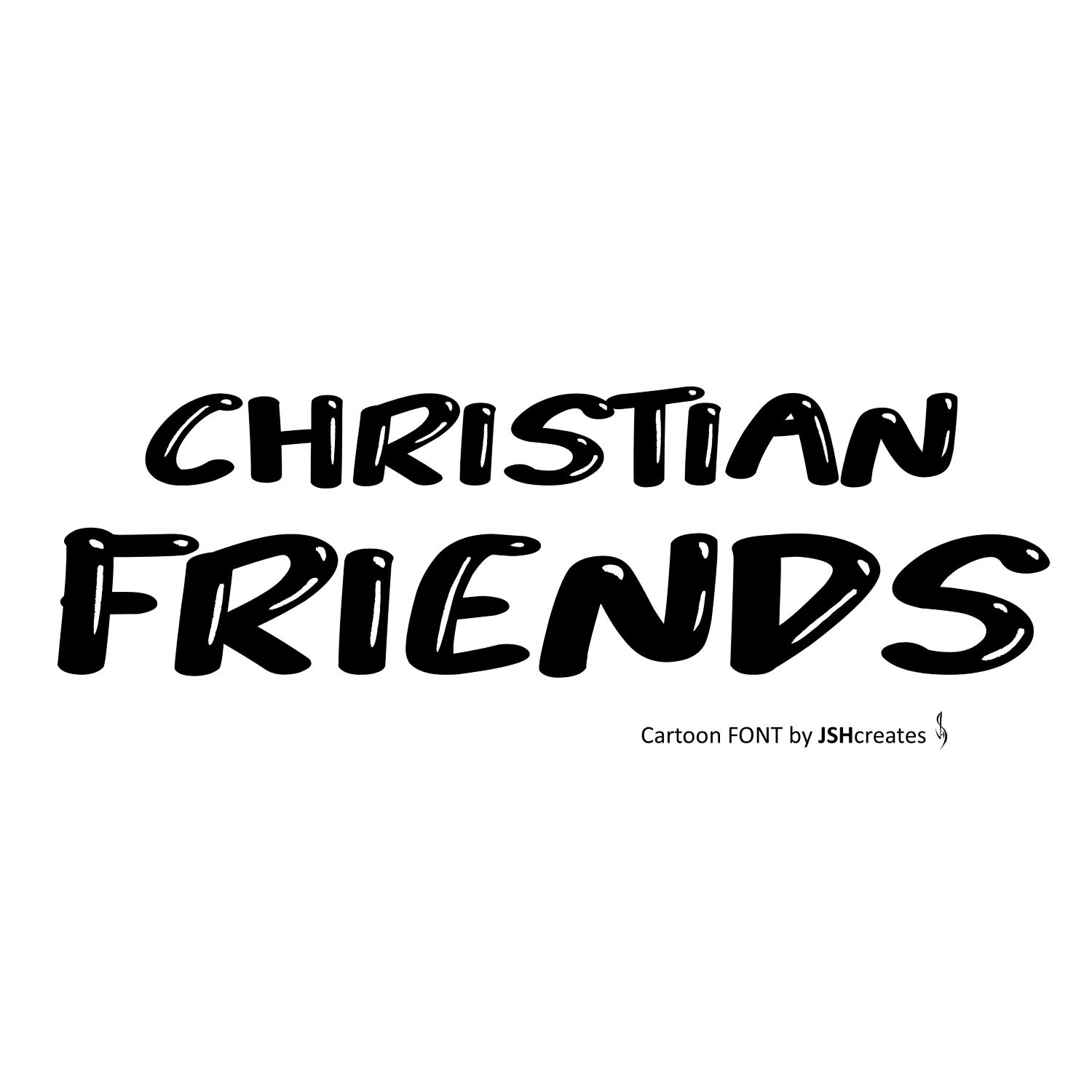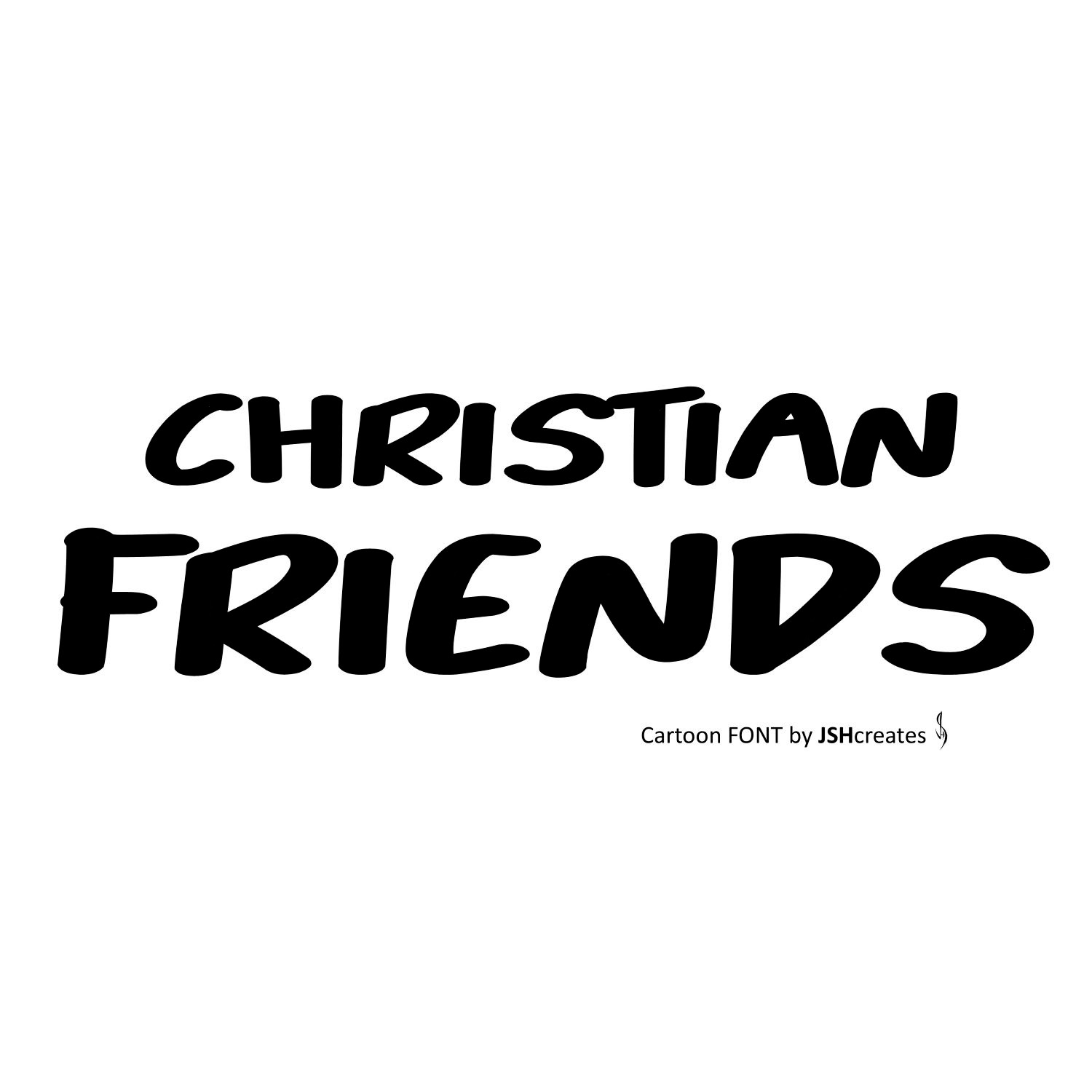
Christian Friends Font
3D Cartoon font. “Christian Friends”. Perfect for advertising and display purposes, including banners, book covers, shirts, posters, logos and much more!
This is an All CAPS font, including numbers. (Download includes two styles, one in 3D and one without the white accents)